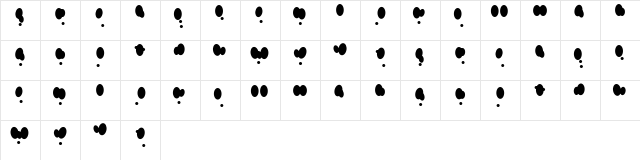
Complete Seasonal Leaves glyph index. Displaying only characters natively supported by Seasonal Leaves font.
Seasonal is a composed and adaptable typeface that performs quietly and consistently across a wide range of design contexts.